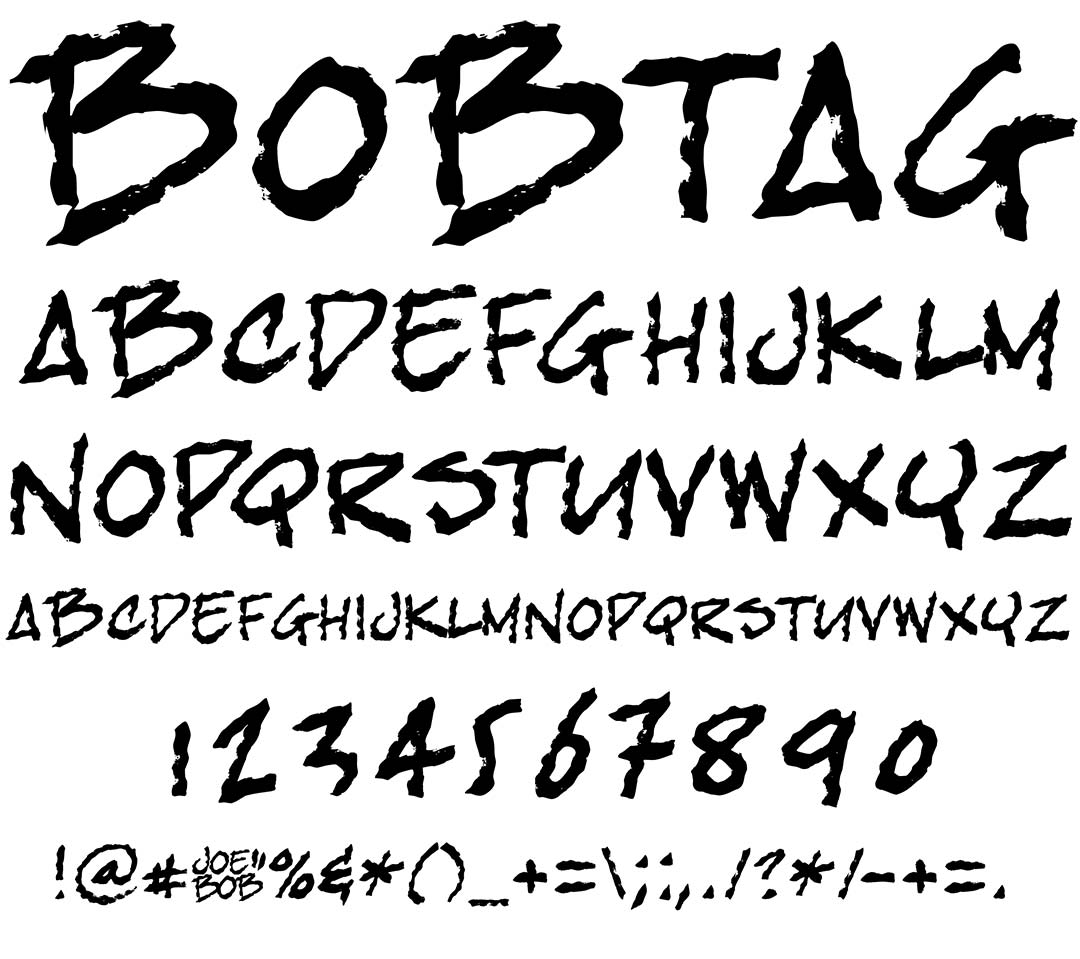
Bob Tag
Bob Tag Graffiti Alphabet
Bob Tag Graffiti Font Family
Bob Tag has a very readable letter style with just enough motion to appear handwritten & natural. The paths are clean but the author hasgiven the strokes a rough appearance almost like chalk or crayon on cement or a rough surface.